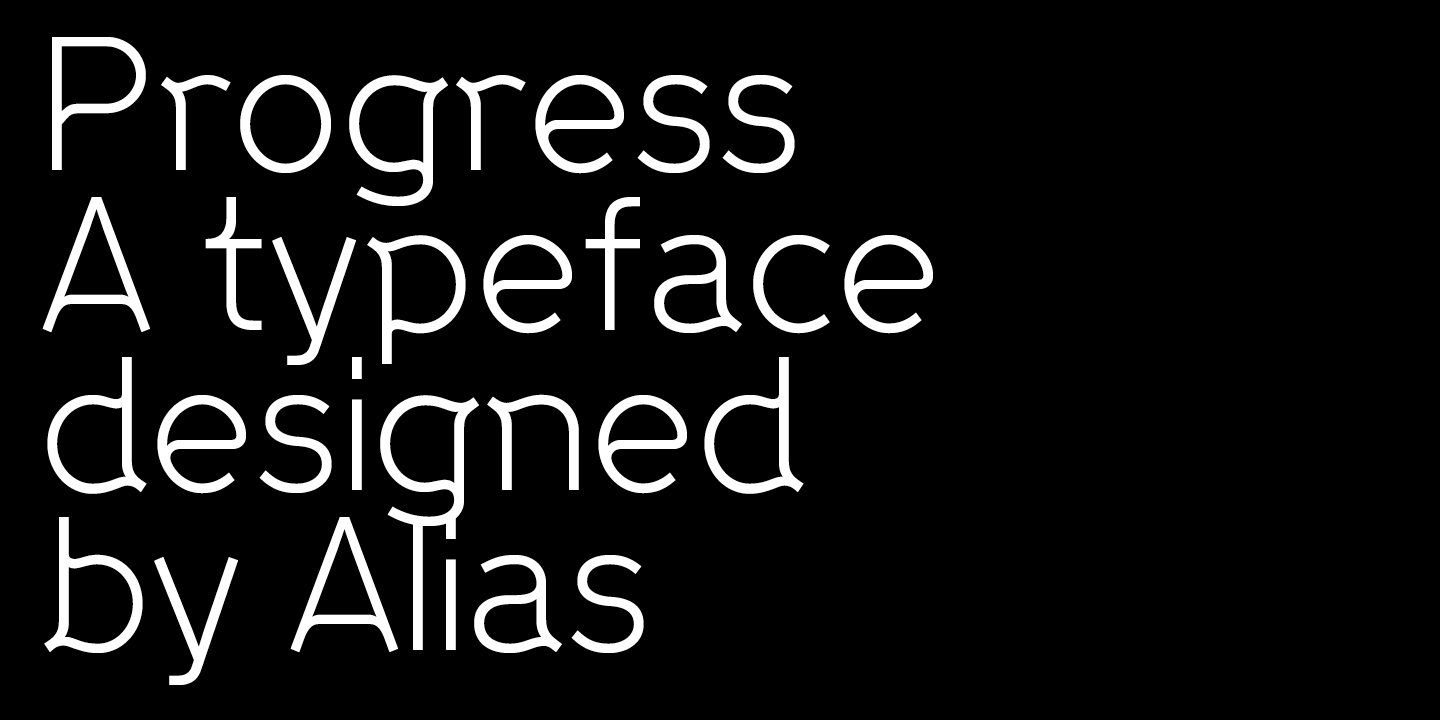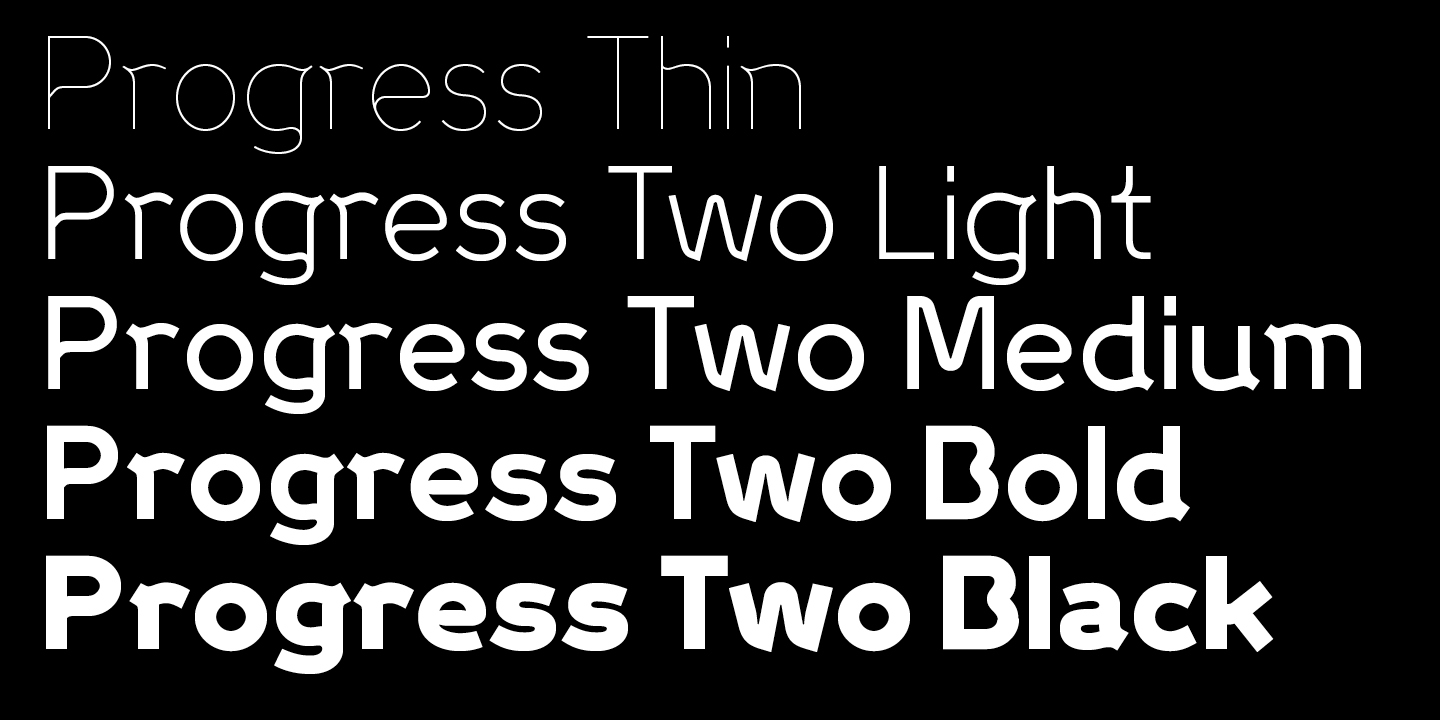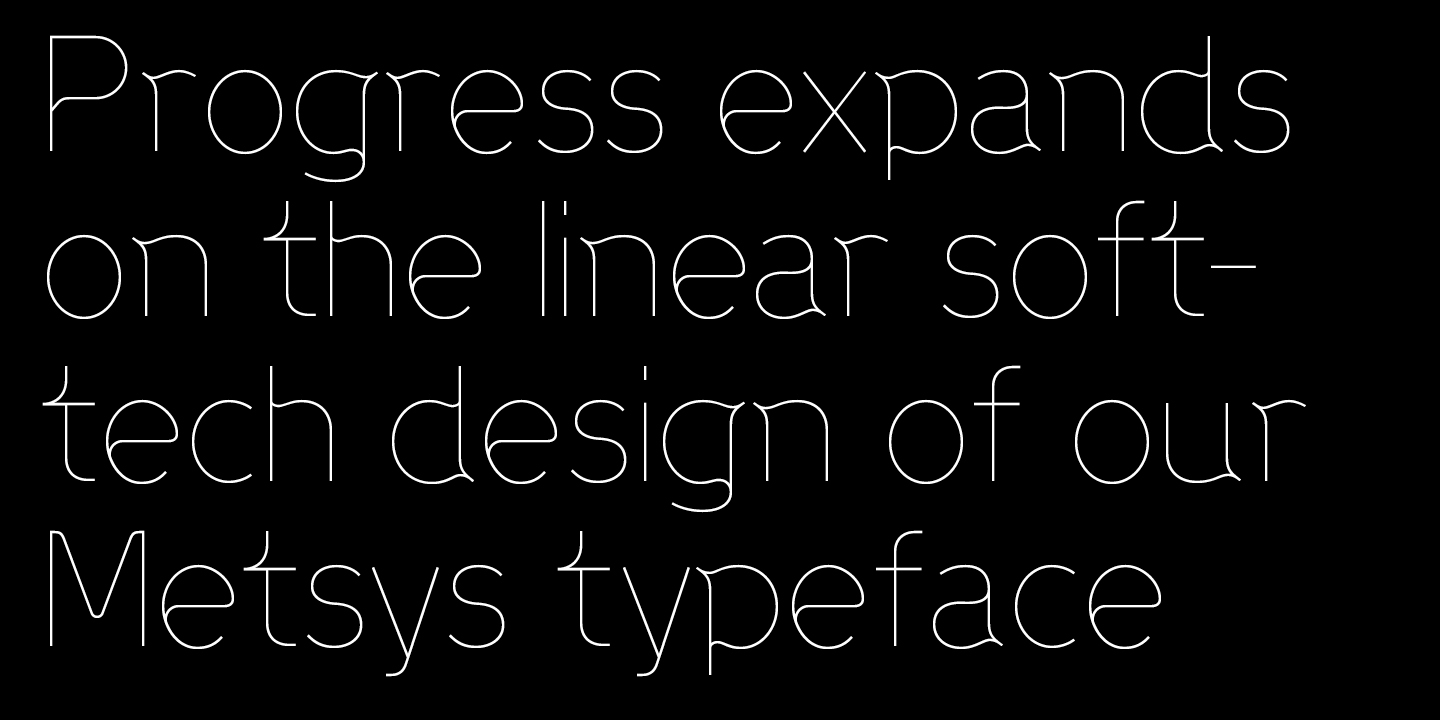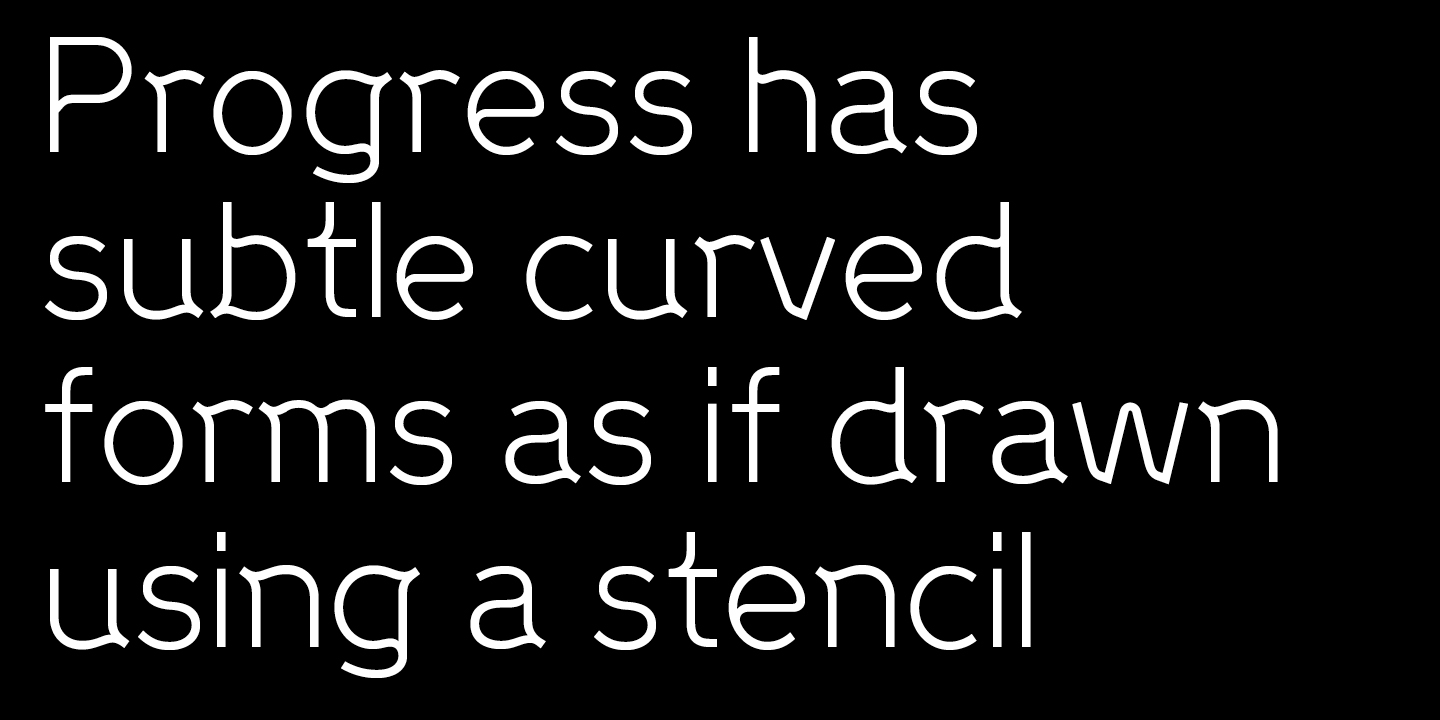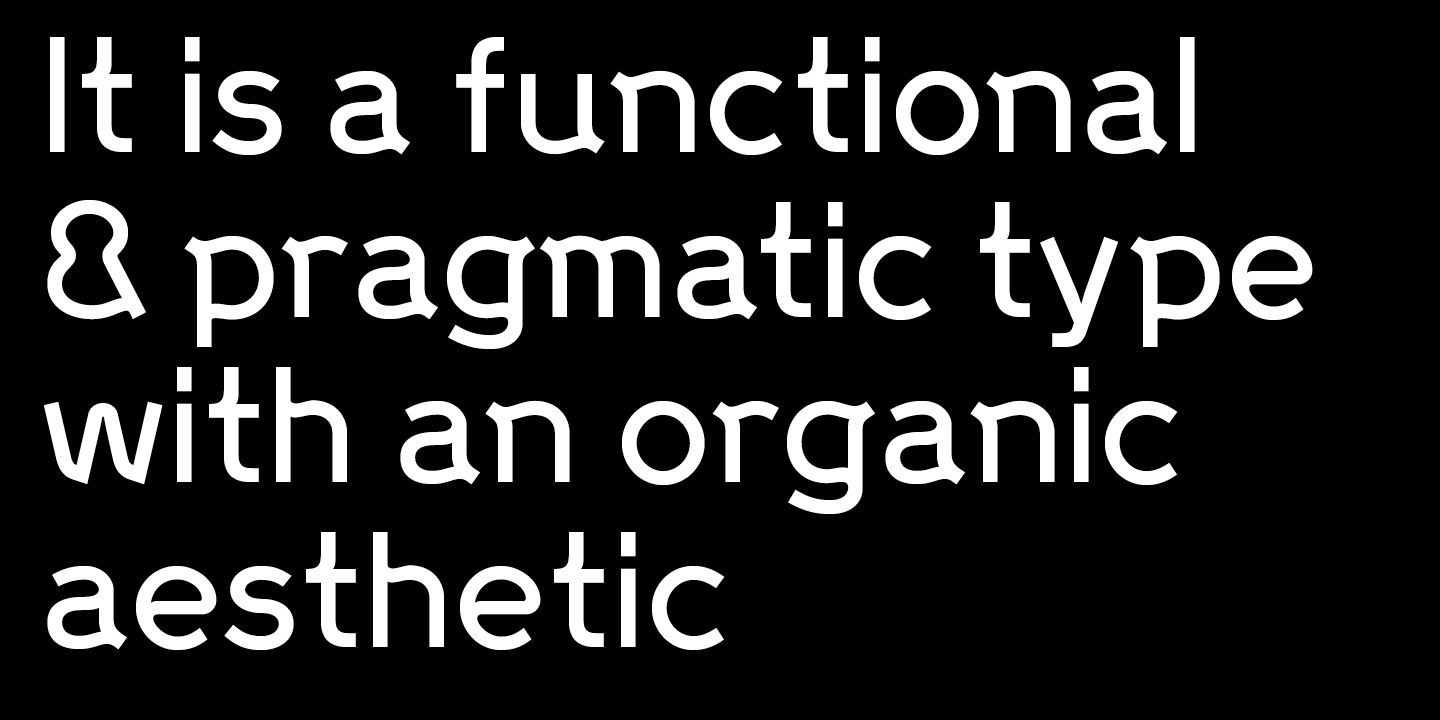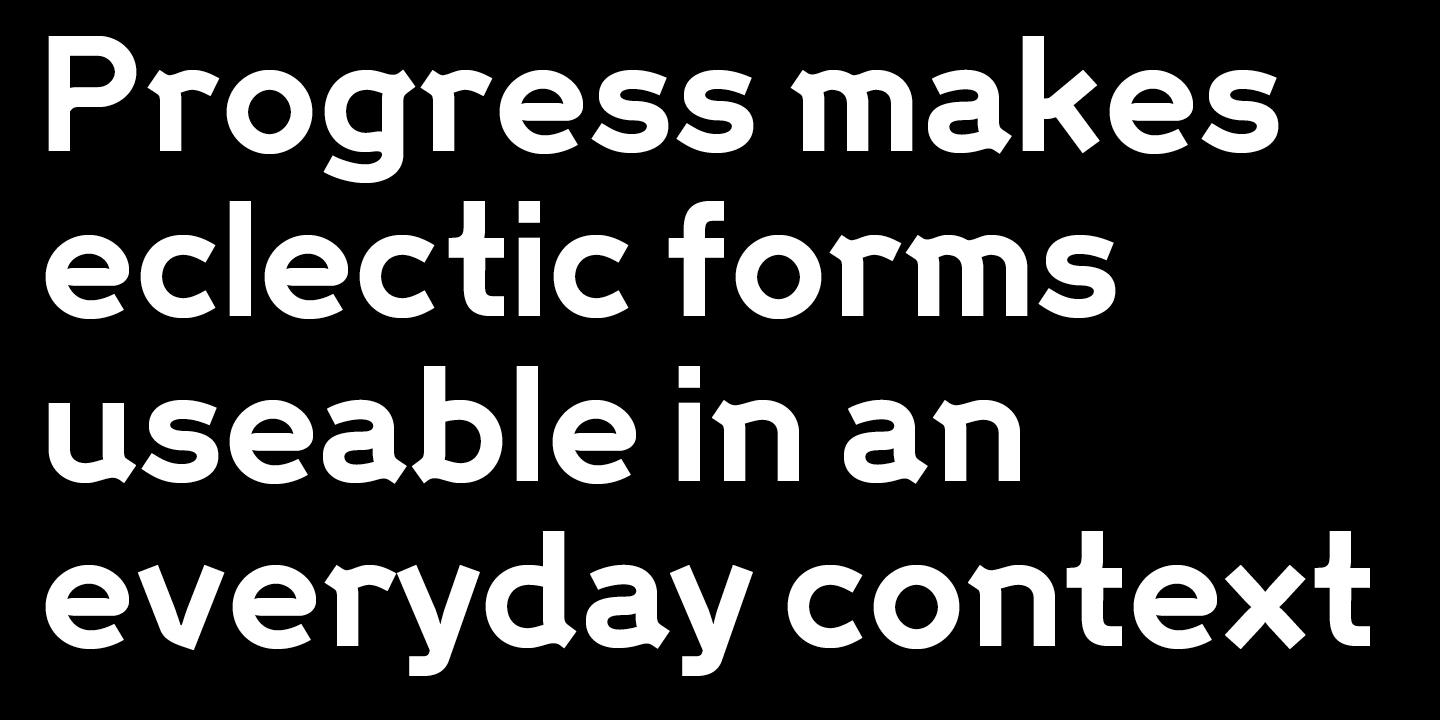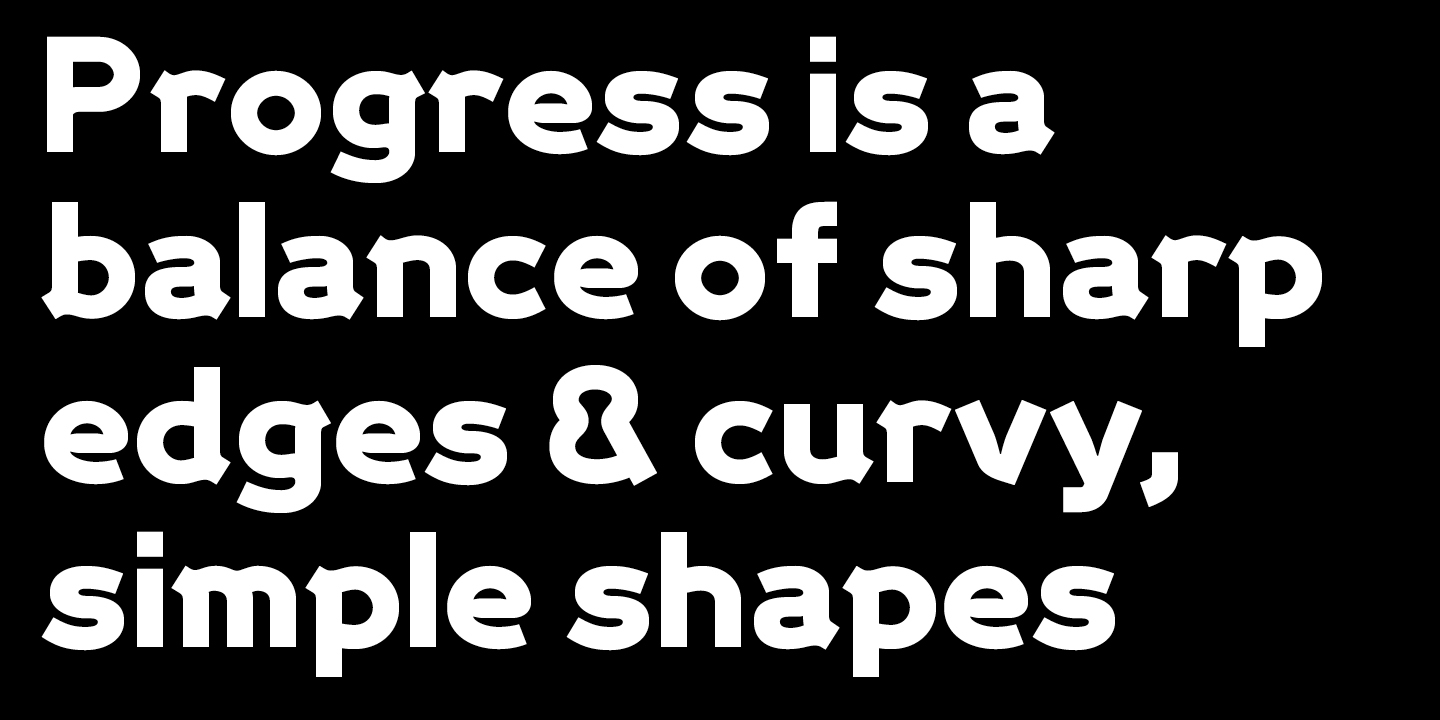
Progress Two
Font Family by Alias
Progress Two is a modern sans serif family with a clean, contemporary voice and a straightforward, confident look. Its stripped-back construction gives it a crisp visual rhythm that feels clear and current, making it a strong choice when you want typography that reads as polished without feeling overly decorative.
With five styles included—Thin, Light, Medium, Bold, and Black—it offers useful range for building hierarchy across branding, editorial layouts, posters, packaging, signage, and other display-driven work. The lighter weights bring a sleek, airy feel, while the heavier cuts add impact for headlines and bold graphic statements.
Designed by Alias, this family is especially well suited to projects that call for a modern sans serif with flexibility across weights and a distinctly contemporary edge.